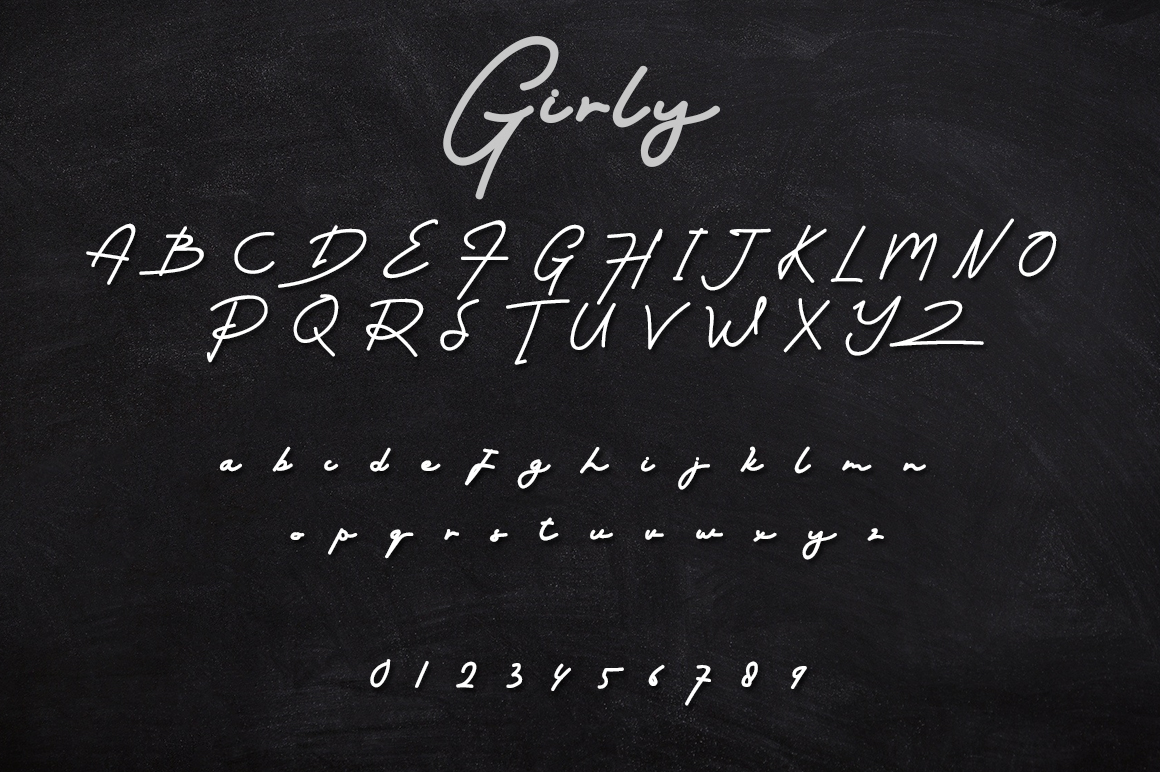
Girly Handwritten Font
It’s a very beautiful and attractive handwritten font. This font is the ideal font for adding an adventurous and authentic feel to your next design idea!